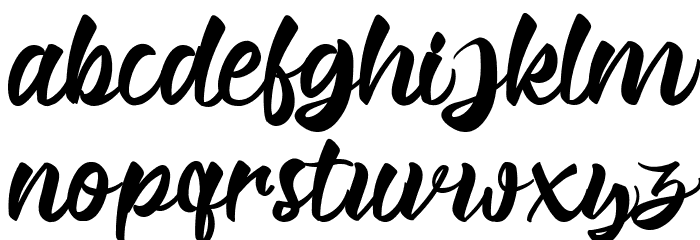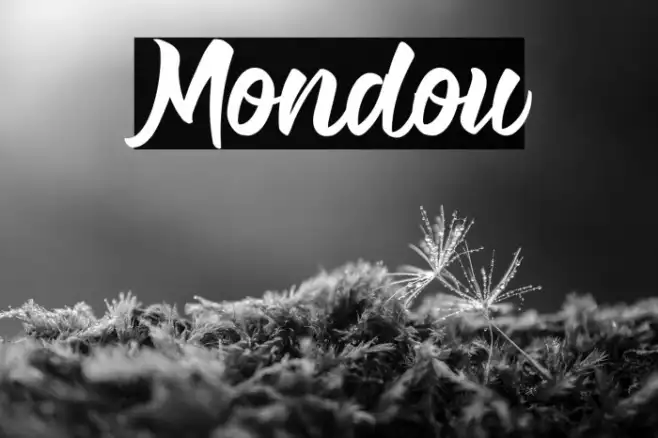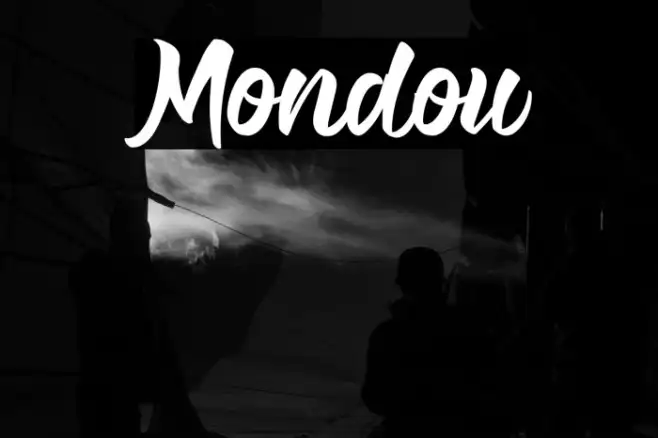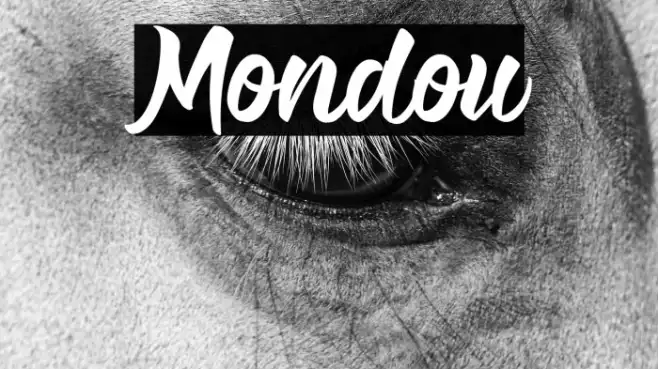
Mondou Font
This font features a bold and expressive script style, characterized by its fluid and dynamic strokes. The letters are interconnected, creating a sense of continuity and flow. The uppercase letters exhibit a dramatic flair with sweeping curves and loops, while the lowercase letters maintain a consistent rhythm and elegance. The overall appearance is both artistic and modern, making it suitable for creative and eye-catching designs. The font's bold weight and high contrast in stroke thickness add to its visual impact, ensuring legibility even at smaller sizes.
A bold and expressive script font with fluid, interconnected strokes.
- Font: Mondou
- Category: Script